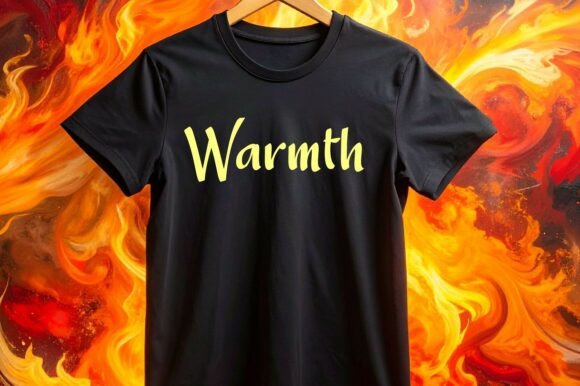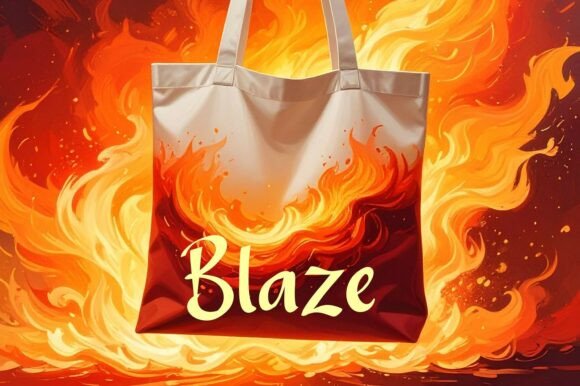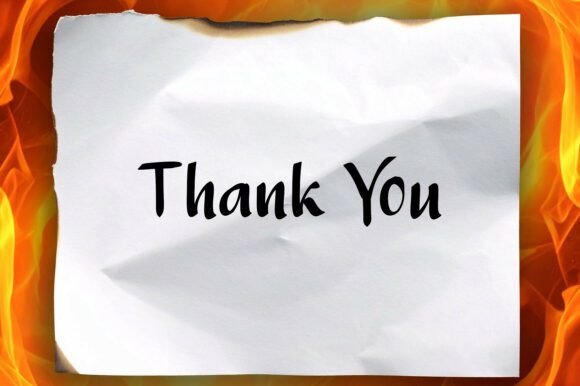
Unleashing the Fiery Spirit of Anoman Obong Font
In the realm of typography, few fonts manage to evoke the same level of intensity and energy as the Anoman Obong font. This dramatic and expressive script typeface is a powerhouse of creativity, designed to leave a lasting impression on its audience. With its dynamic, sweeping strokes and brush-like quality, Anoman Obong is the perfect choice for designers and crafters looking to add a bold statement to their projects.
The Origins of Anoman Obong
The name “Anoman Obong” is derived from the Ramayana epic, specifically the burning of Alengka by Hanuman. This reference adds a layer of depth and mythology to the font, making it even more intriguing for designers who appreciate the richness of cultural heritage. The font’s design is inspired by the fiery passion and energy of this legendary tale, which is reflected in its bold and dynamic letterforms.
The Anoman Obong font boasts a range of design characteristics that make it truly unique. Its characters feature:
- Dynamic, sweeping strokes: These strokes give the font its sense of movement and energy, making it perfect for designs that require a sense of dynamism.
- Brush-like quality: The font’s brush-like quality adds a touch of raw force and fluid motion, making it ideal for designs that require a sense of spontaneity and creativity.
- Variable thickness of strokes: The varying thickness of the strokes adds to the font’s vigorous and lively appearance, making it perfect for designs that require a sense of drama and flair.
- Slightly irregular baseline: The irregular baseline adds to the font’s sense of movement and energy, making it perfect for designs that require a sense of dynamism and creativity.
Use Cases for Anoman Obong Font
The Anoman Obong font is exceptionally well-suited for a range of design projects, including:
- Striking headlines: The font’s bold and dynamic letterforms make it perfect for creating attention-grabbing headlines that demand attention.
- Event posters: The font’s sense of energy and movement makes it ideal for event posters, especially for concerts, dramatic performances, or other events that require a sense of excitement and drama.
- Fantasy-themed designs: The font’s mythical undertones and sense of raw force make it perfect for fantasy-themed designs, such as book covers, game graphics, or other projects that require a sense of adventure and magic.
- Gaming graphics: The font’s bold and dynamic letterforms make it perfect for gaming graphics, such as logos, titles, or other design elements that require a sense of energy and excitement.
- Branding: The font’s unique and memorable aesthetic makes it perfect for branding projects that require a sense of impact and memorability.
Tips for Using Anoman Obong Font
To get the most out of the Anoman Obong font, designers and crafters should consider the following tips:
- Use it sparingly: The font’s bold and dynamic letterforms can be overwhelming if used excessively. Use it sparingly to create a sense of drama and emphasis.
- Pair it with contrasting fonts: Pairing the Anoman Obong font with contrasting fonts can help to create a sense of visual interest and balance.
- Experiment with colors: The font’s bold and dynamic letterforms can be paired with a range of colors to create a sense of energy and excitement.
The Anoman Obong font is a powerful and expressive script typeface that is sure to leave a lasting impression on its audience. With its dynamic, sweeping strokes and brush-like quality, it is perfect for designers and crafters looking to add a bold statement to their projects. Whether used for striking headlines, event posters, fantasy-themed designs, gaming graphics, or branding, the Anoman Obong font is sure to unleash a fiery spirit of creativity and energy.